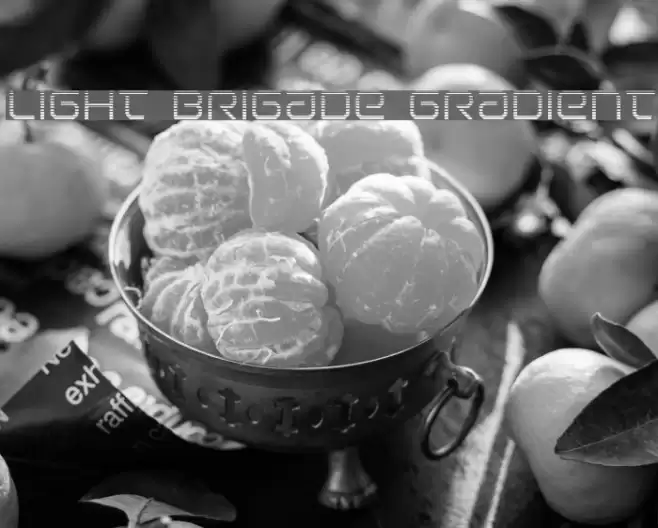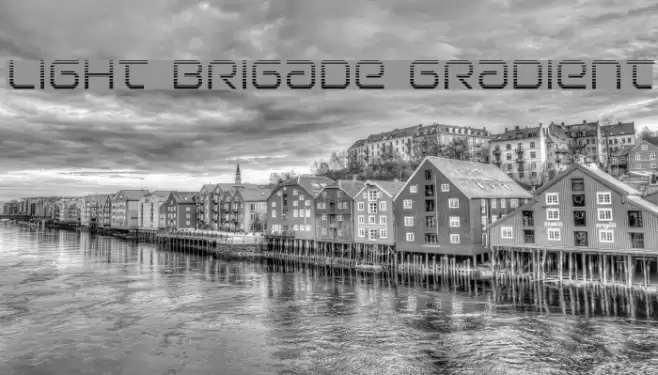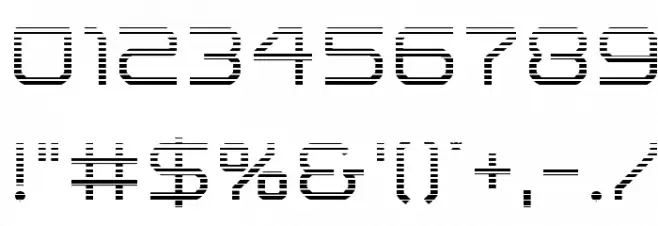
Light Brigade Gradient Font
Light Brigade Gradient Description
This font features a unique, futuristic design with a gradient-like effect created by horizontal lines running through each character. The uppercase and lowercase letters maintain a consistent style, with clean, geometric shapes that give a modern and digital feel. The numerals and special characters follow the same design principles, ensuring uniformity across all glyphs. The font's distinct appearance makes it stand out, ideal for projects that require a contemporary and tech-inspired look.
A futuristic, gradient-styled font with horizontal line detailing from Uncategorized fonts.
- Proposed Projects: Ideal for digital media, tech branding, video game titles, and modern advertising campaigns.